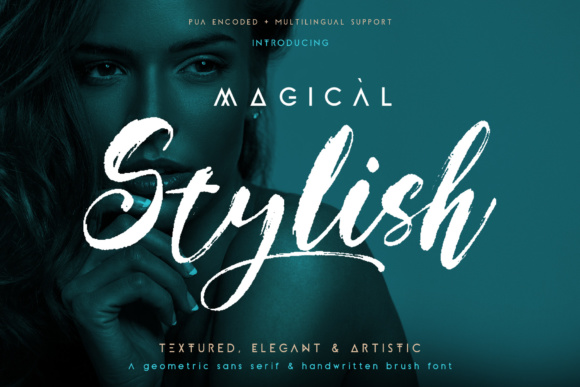
In a world of digital expression, where words dance across screens, let your creativity take center stage with the Magical Stylish Font. This captivating font duo, meticulously crafted by the ingenious minds at fontsgood, is a symphony of elegance, style, and versatility, designed to transform your digital designs into breathtaking masterpieces.
Unleash the power of three distinct variations: two mesmerizing scripts and a clean, crisp sans serif. Each variation possesses its own unique charm, allowing you to effortlessly adapt to any project's demands. Whether you seek to craft enchanting invitations, design captivating social media posts, or create visually stunning logos, the Magical Stylish Font is your ultimate companion.
Experience the allure of the first script, a graceful dance of flowing lines and elegant curves. This enchanting script carries an undeniable sense of sophistication, lending an air of timeless beauty to your designs. Let your words flow effortlessly, like a whisper carried by the wind, captivating your audience with its delicate charm.
Discover the allure of the second script, a playful fusion of bold strokes and intricate details. This captivating script exudes energy and vibrancy, making it the perfect choice for projects that demand attention. Its dynamic lines and expressive characters will command attention, leaving a lasting impression on all who behold it.
And for those seeking a touch of modern minimalism, the sans serif variation awaits. With its clean lines and geometric precision, this font exudes a sense of clarity and simplicity. Its sharp angles and unwavering structure create a striking contrast against the flowing scripts, adding a touch of contemporary elegance to your designs.
Together, these three variations form a harmonious trifecta of typographic excellence, enabling you to effortlessly adapt to any design challenge. The Magical Stylish Font is not merely a collection of fonts; it is a gateway to a world of creative possibilities. Its versatility knows no bounds, empowering you to effortlessly craft designs that resonate with your audience, leaving them spellbound by your creative prowess.